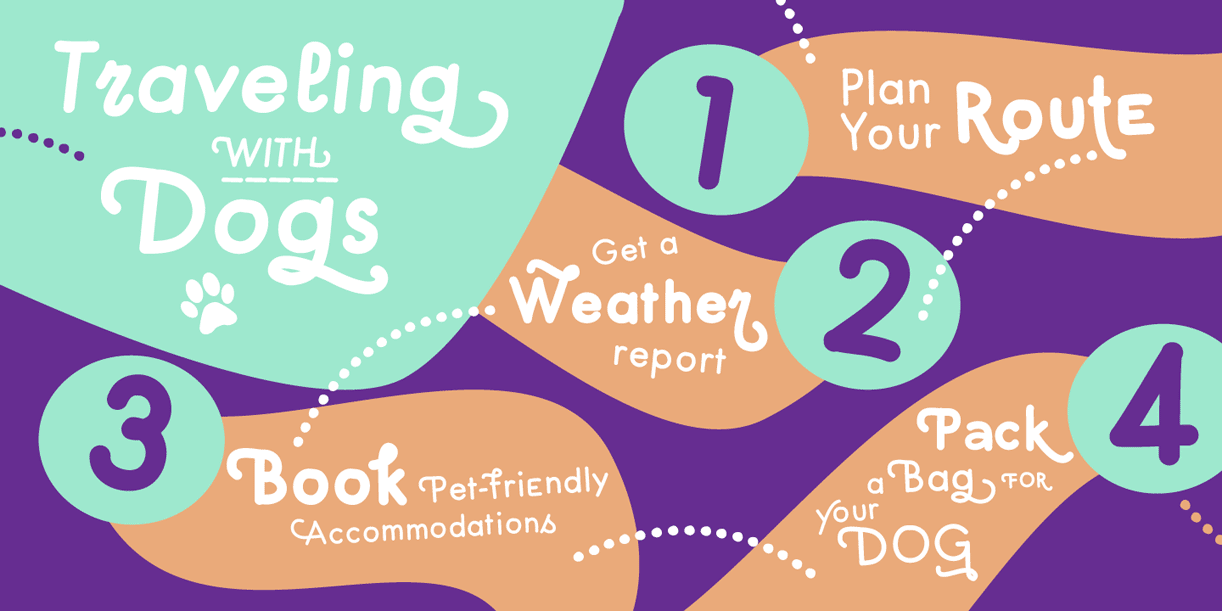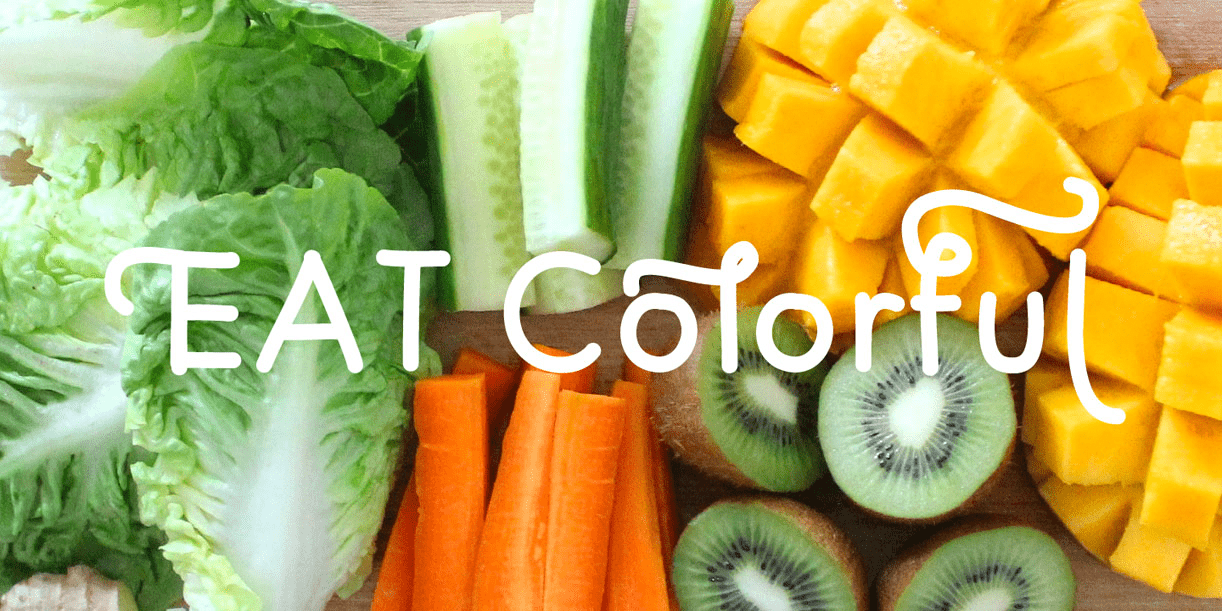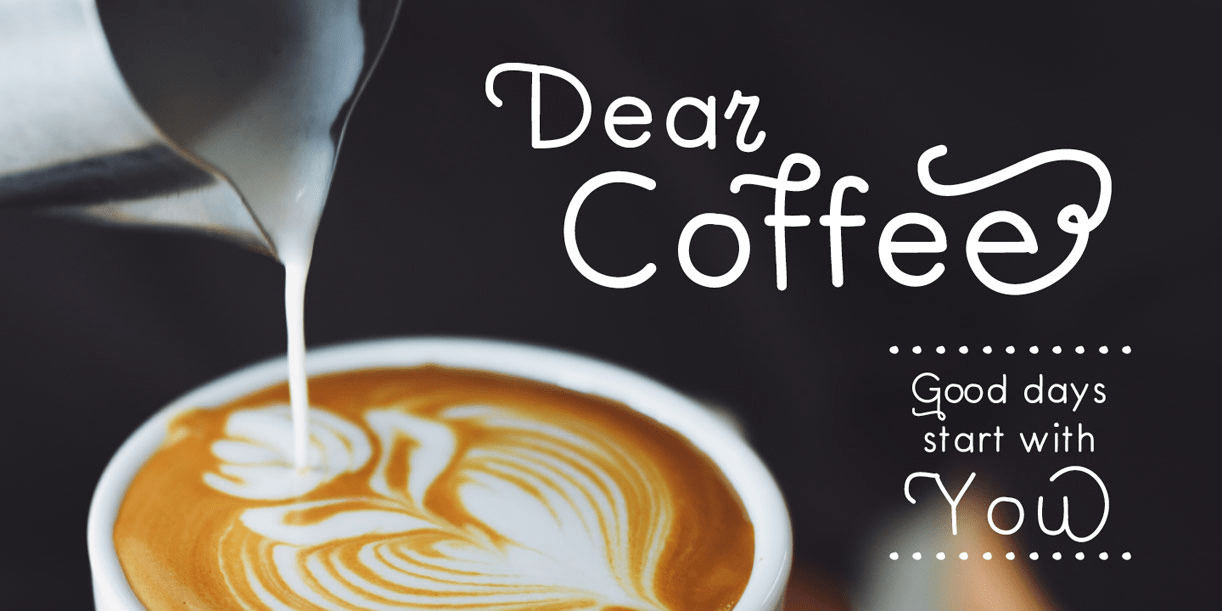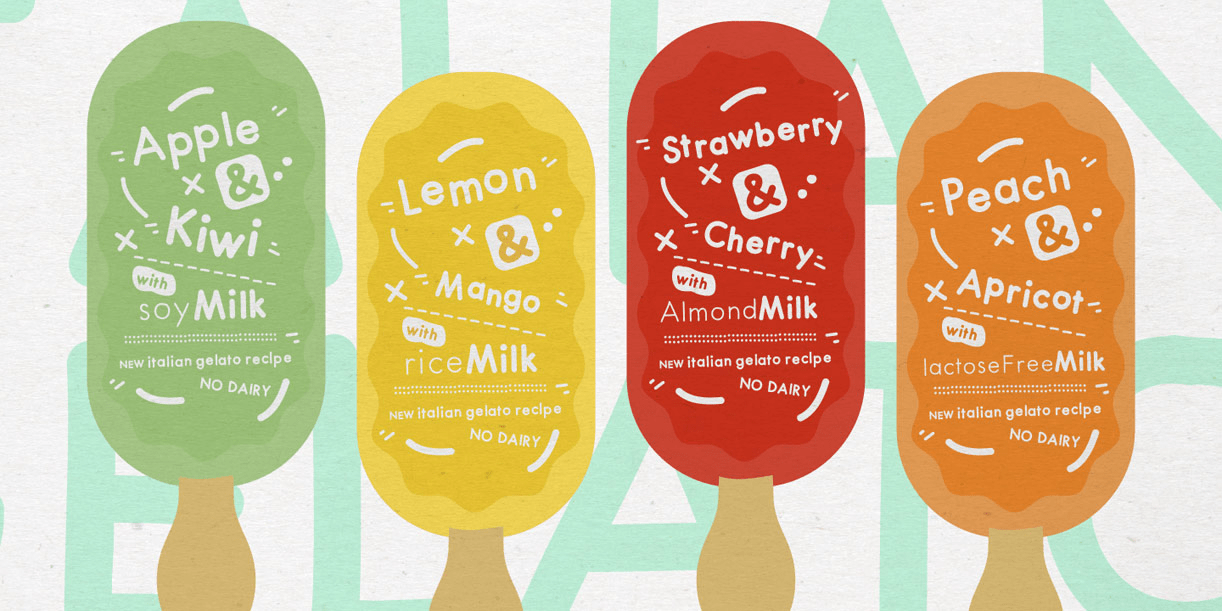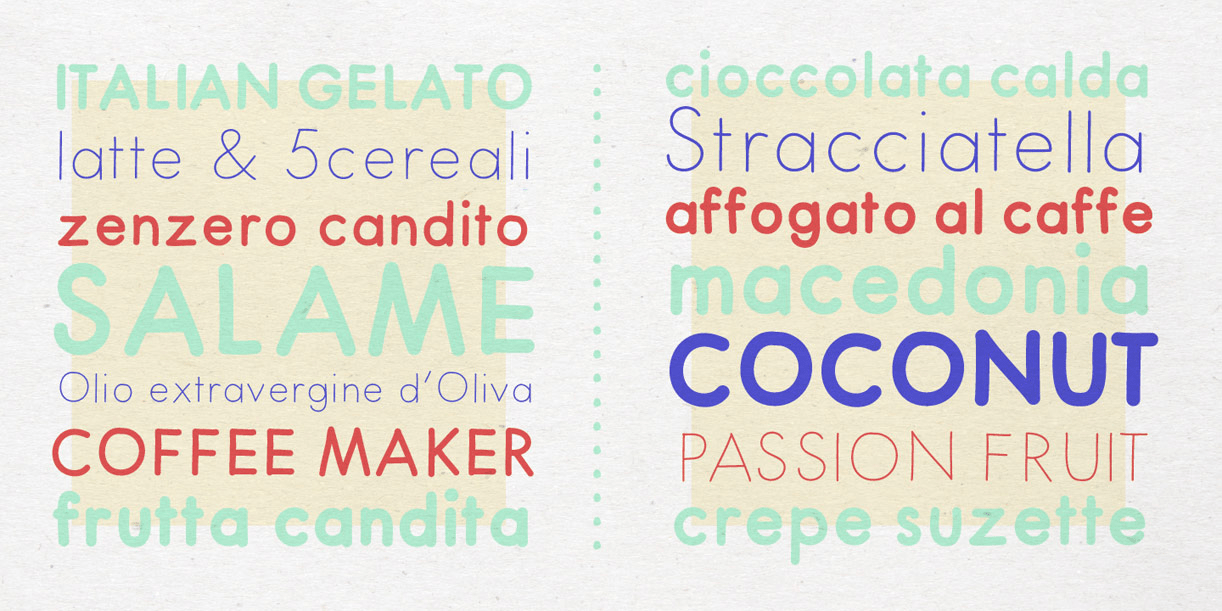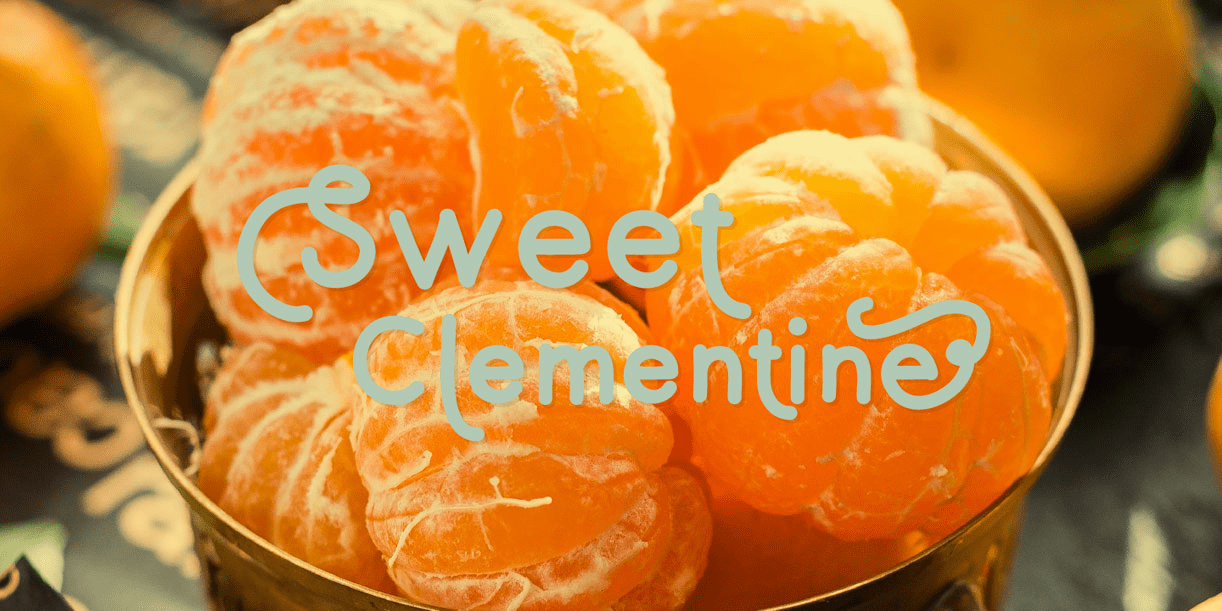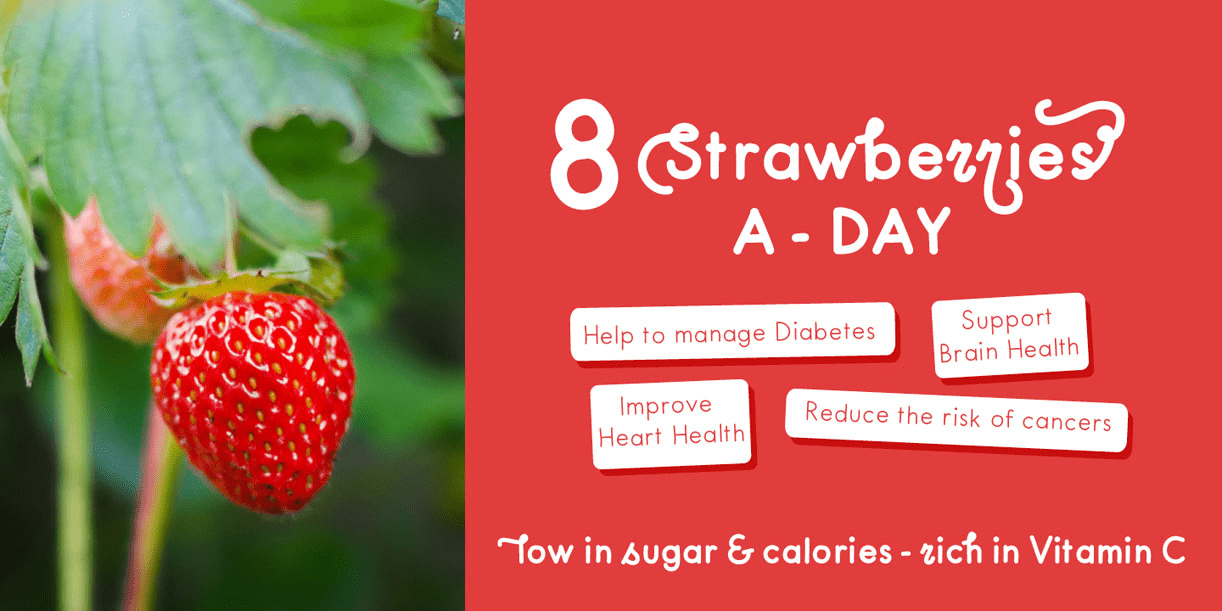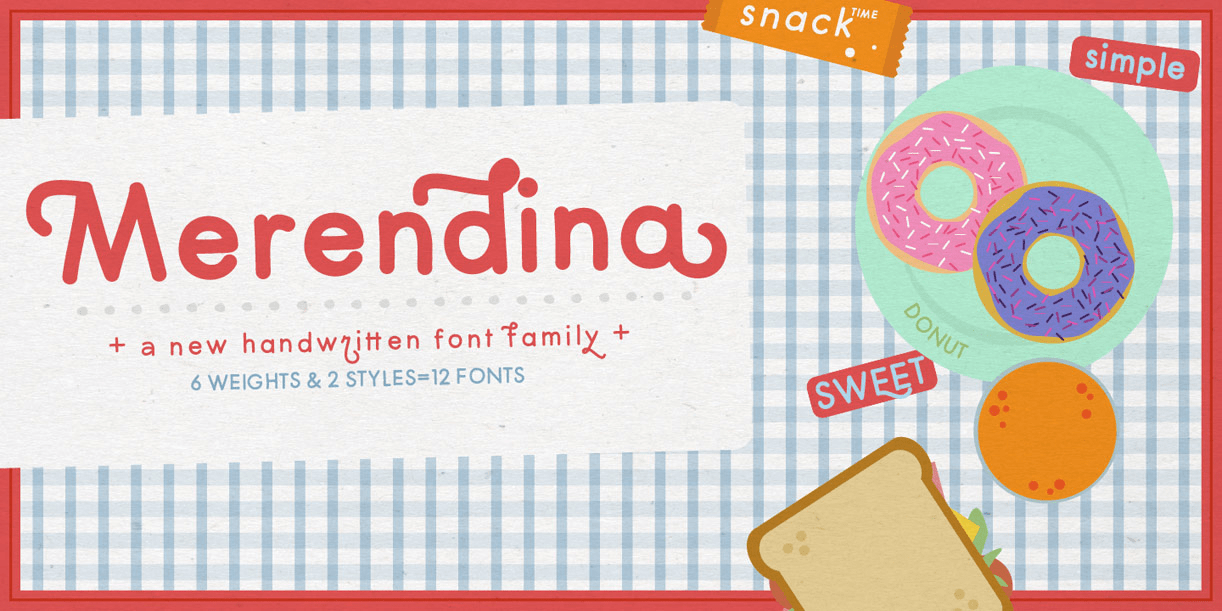
Merendina
Merenda has a geometric construction with an handwritten touch. This family contains regular and slanted and 6 weights. Don\’t miss all the alternates and swashes!